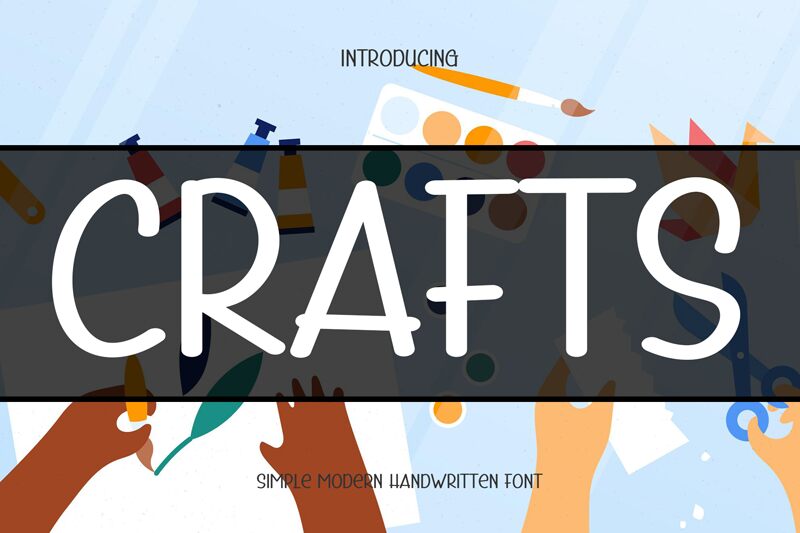
Crafts
Crafts by Etik Fatimah is a captivating handwritten font that exudes a charming, artisanal essence. This dynamic typeface showcases an organic, free-flowing script that captures the essence of handcrafted design. Each letter is imbued with a delightful sense of movement and personality, creating a warm, inviting aesthetic that evokes a sense of authenticity and craftsmanship.
With its unique, expressive strokes and natural variations, Crafts by Etik Fatimah lends itself beautifully to a variety of design applications, from rustic-inspired branding and packaging to whimsical event stationery and editorial layouts. Its versatility allows it to seamlessly integrate into projects that seek to convey a handmade, artisanal charm, making it an excellent choice for designers and creatives seeking to infuse their work with a touch of personality and character.